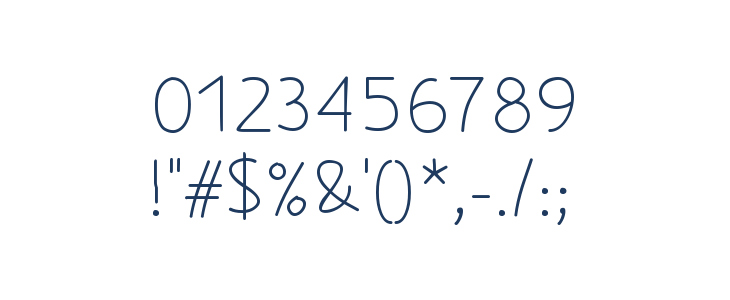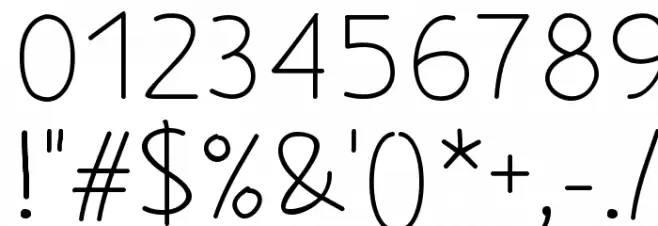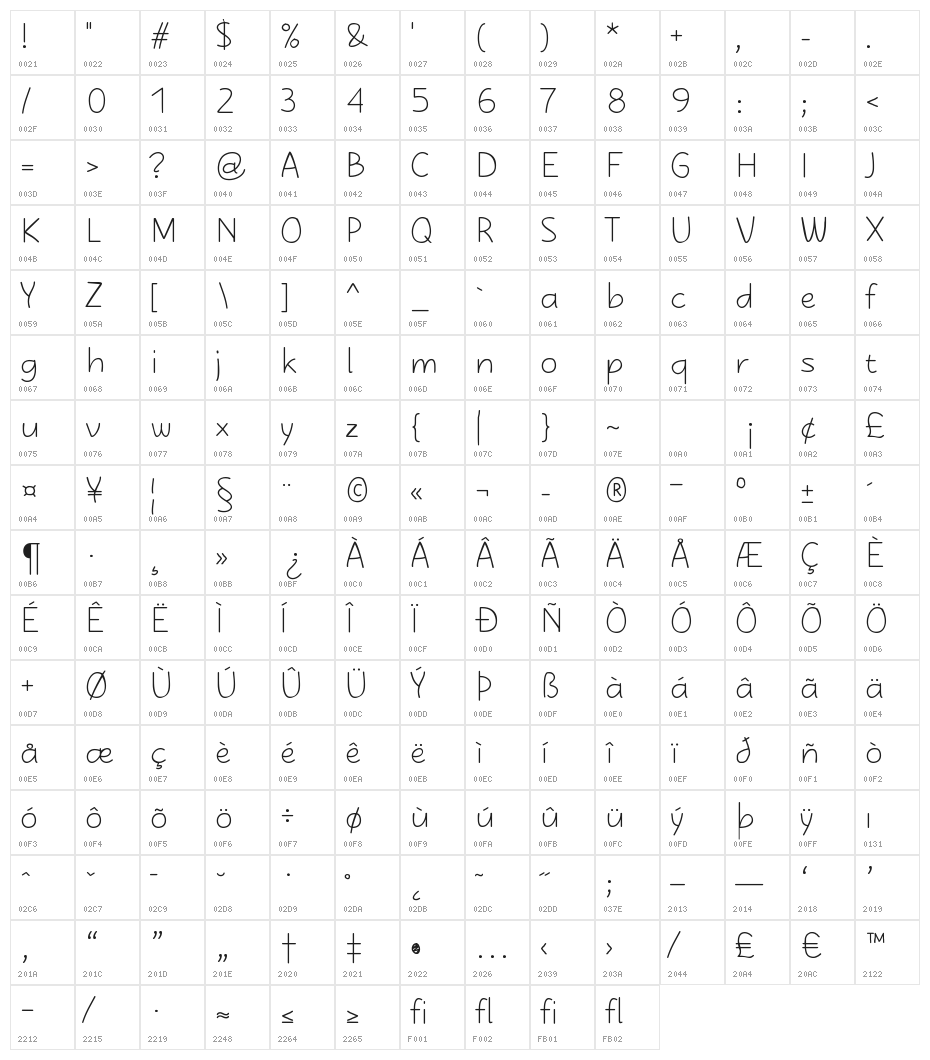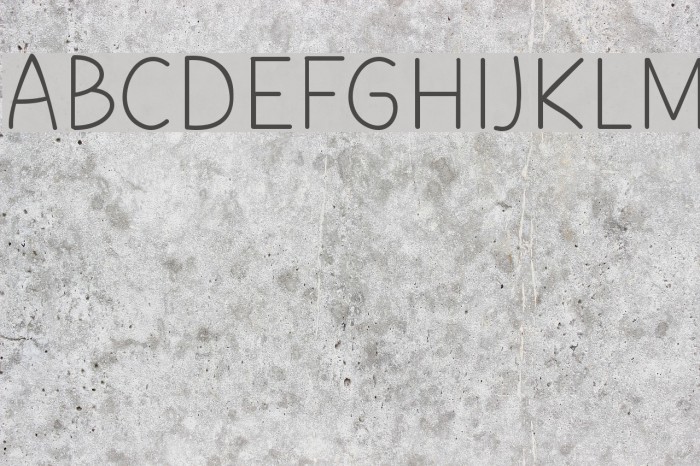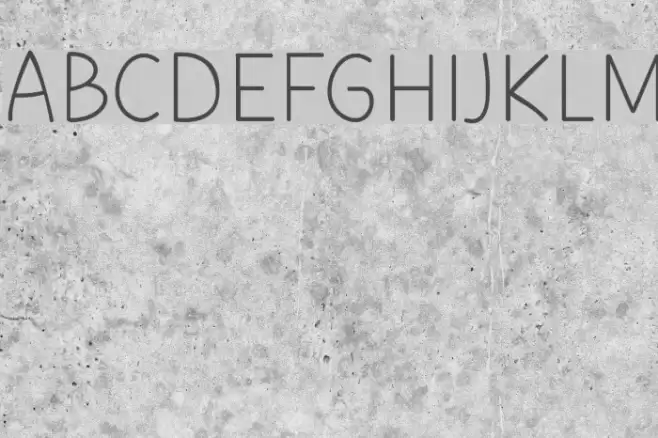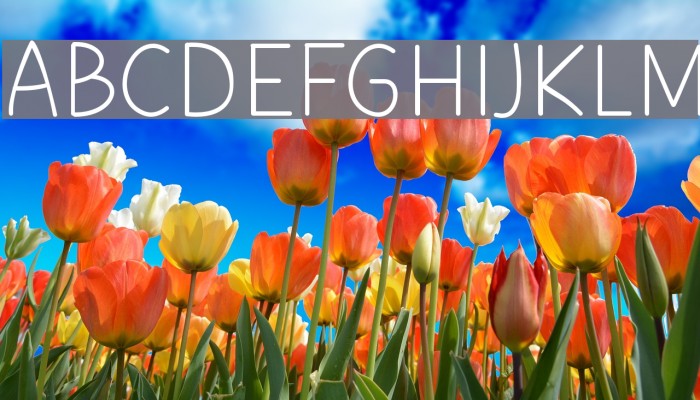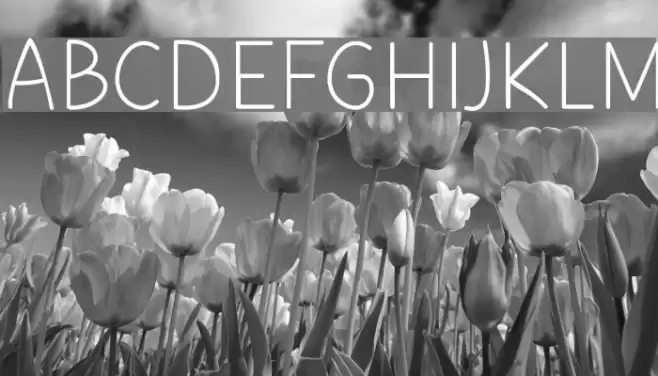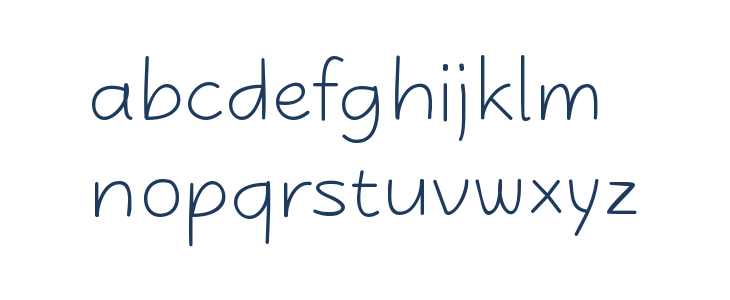
Kasih Font
Kasih Description
This font features a clean and simple design with a handwritten feel, characterized by rounded edges and consistent stroke widths. The uppercase and lowercase letters maintain a uniform height, contributing to a harmonious appearance. The numerals and special characters are crafted with the same attention to detail, ensuring readability and aesthetic appeal. Its casual and friendly style makes it suitable for various applications where a personal touch is desired. The font's legibility is enhanced by its open counters and generous spacing, making it ideal for both digital and print media.